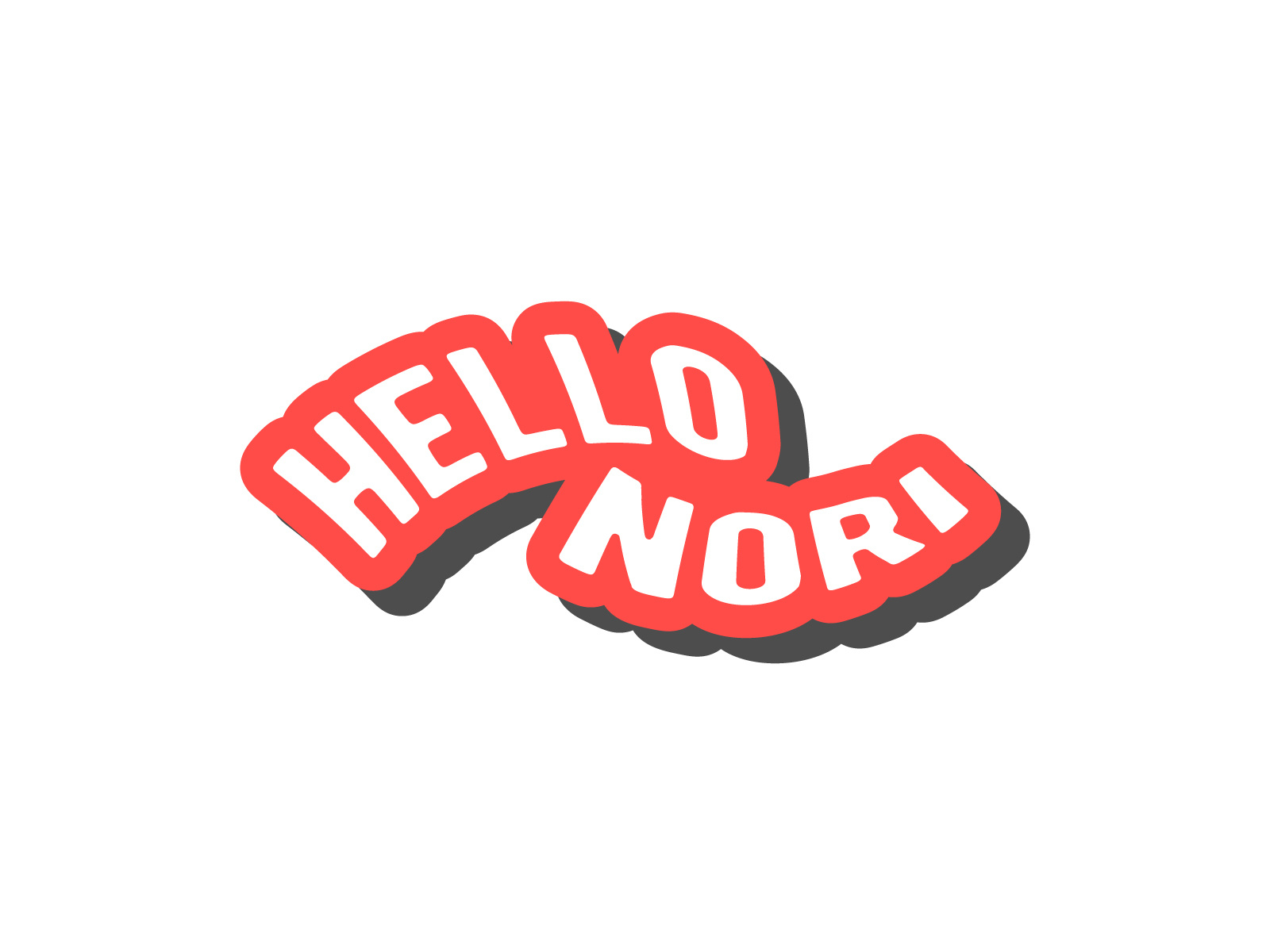
Hello Nori Branding (Custom Font)
Official Logo Custom Font.
the word "hello nori" is the second option of the existing logo mascot. This type of typography looks cheerful and also (Modern, New, Trendy)